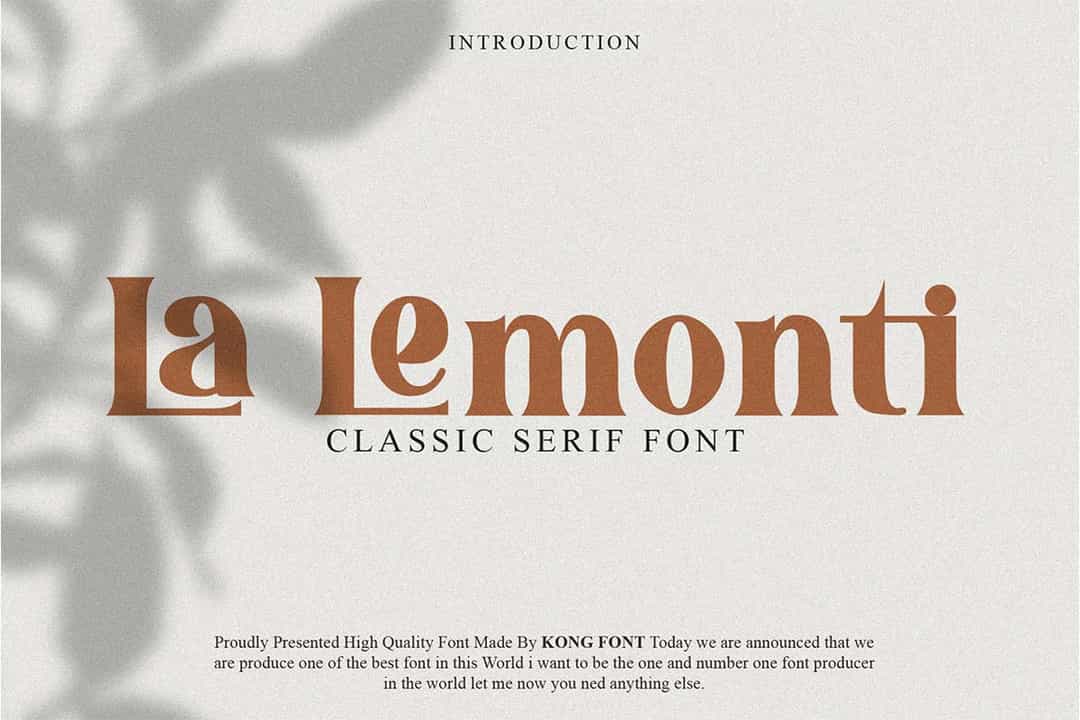
La Lemonti is an old-fashioned serif typeface. This elegant font can help create stunning invitations for birthdays, weddings or any special events with beautiful invitations that add that personal touch. Plus, its set of numbers and letters makes this font perfect for logotype design, Branding Design, Digital Lettering Arts (DLAs), T-Shirt/Apparel design, Posters for magazines, newspapers, signs advertising design projects as well as other branding applications!